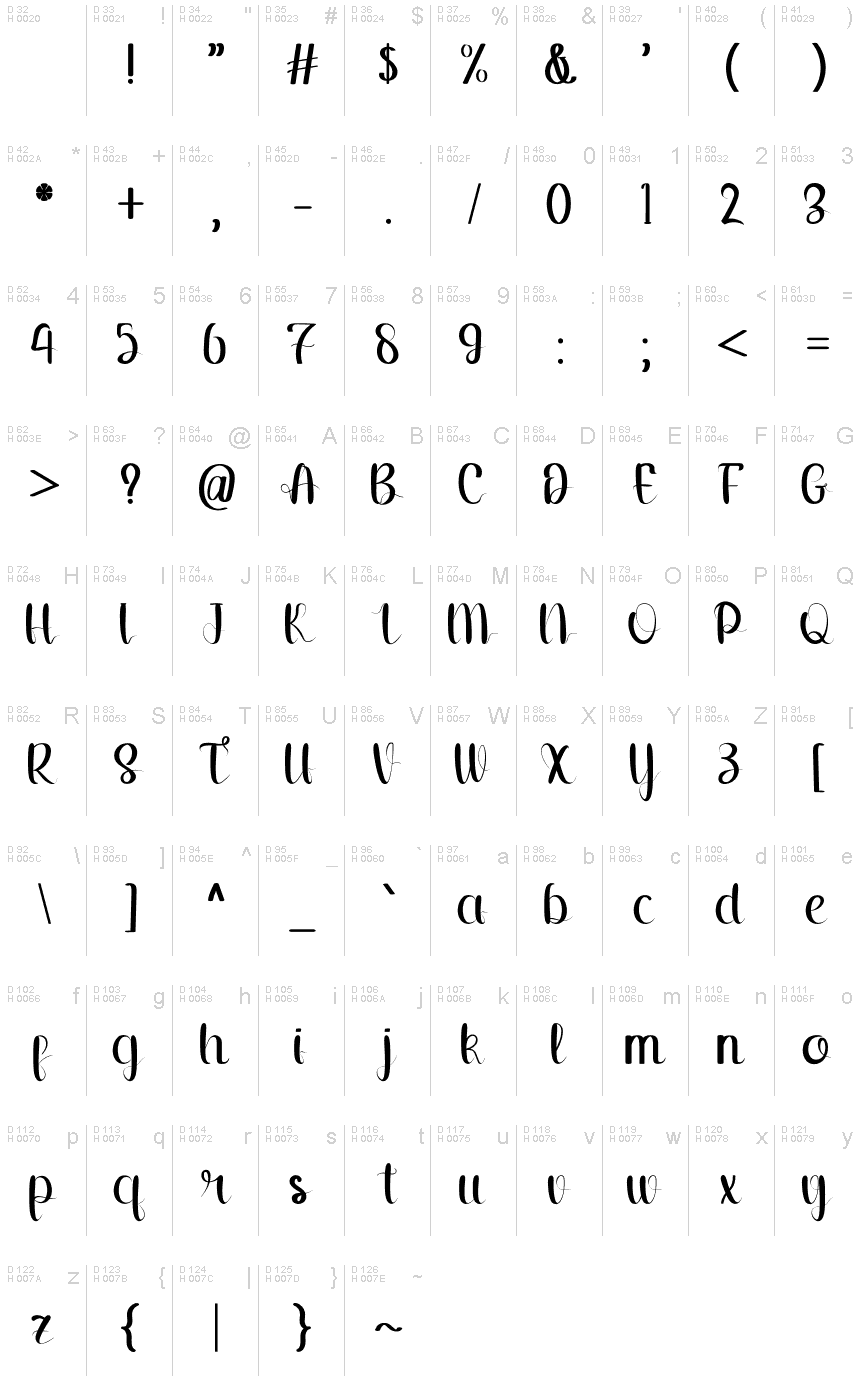
Sweety Candy
Sweety Candy is an elegant calligraphy font designed by FreshtypeINK. Perfect for adding a romantic feel to your projects, this stylish cursive font is ideal for wedding invitations, greeting cards and logo designs.